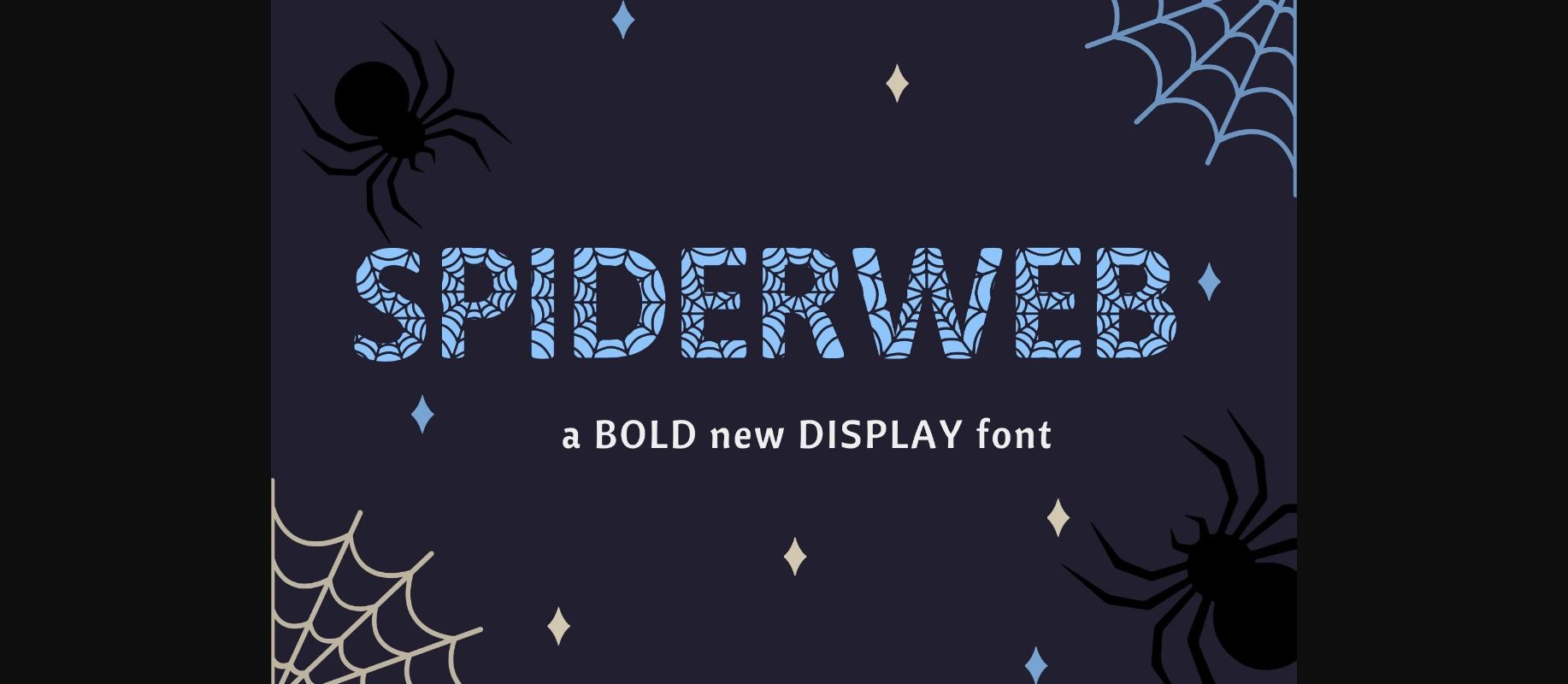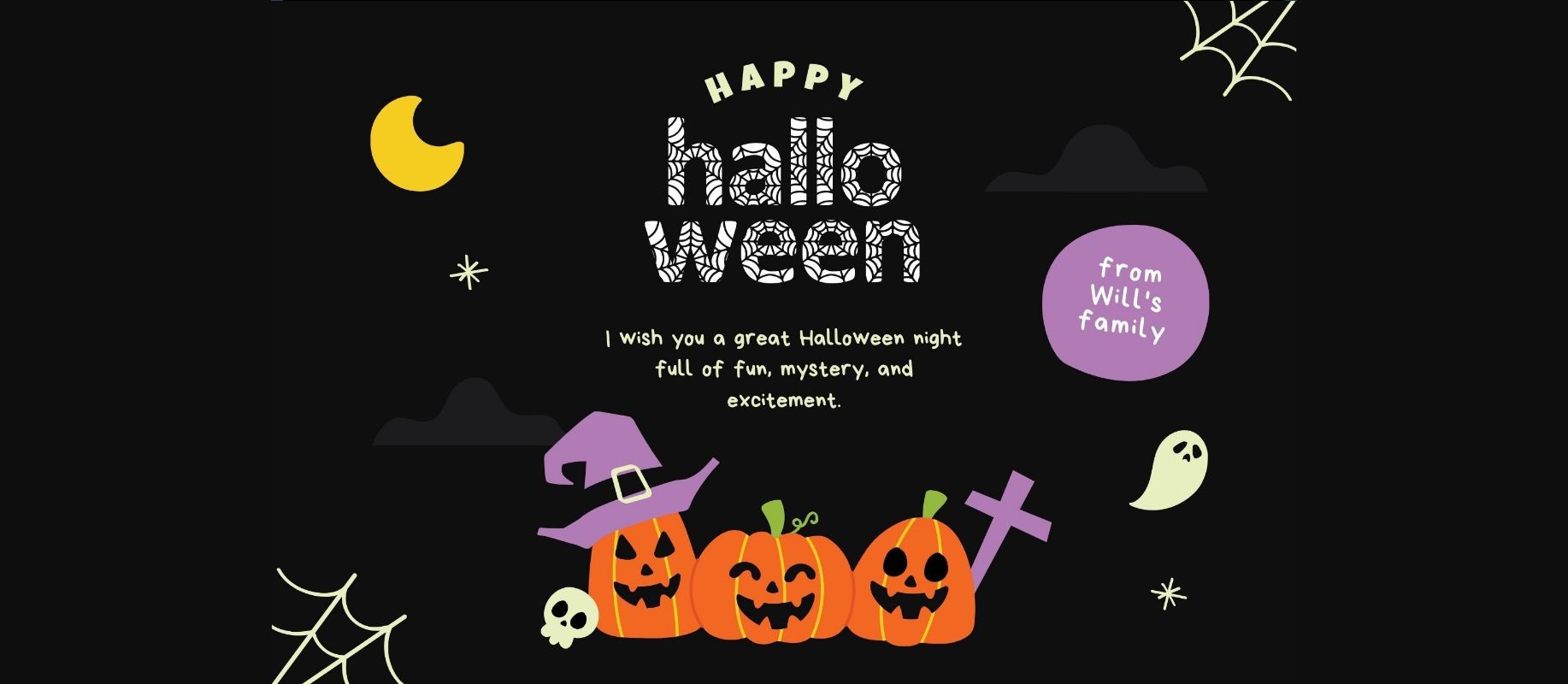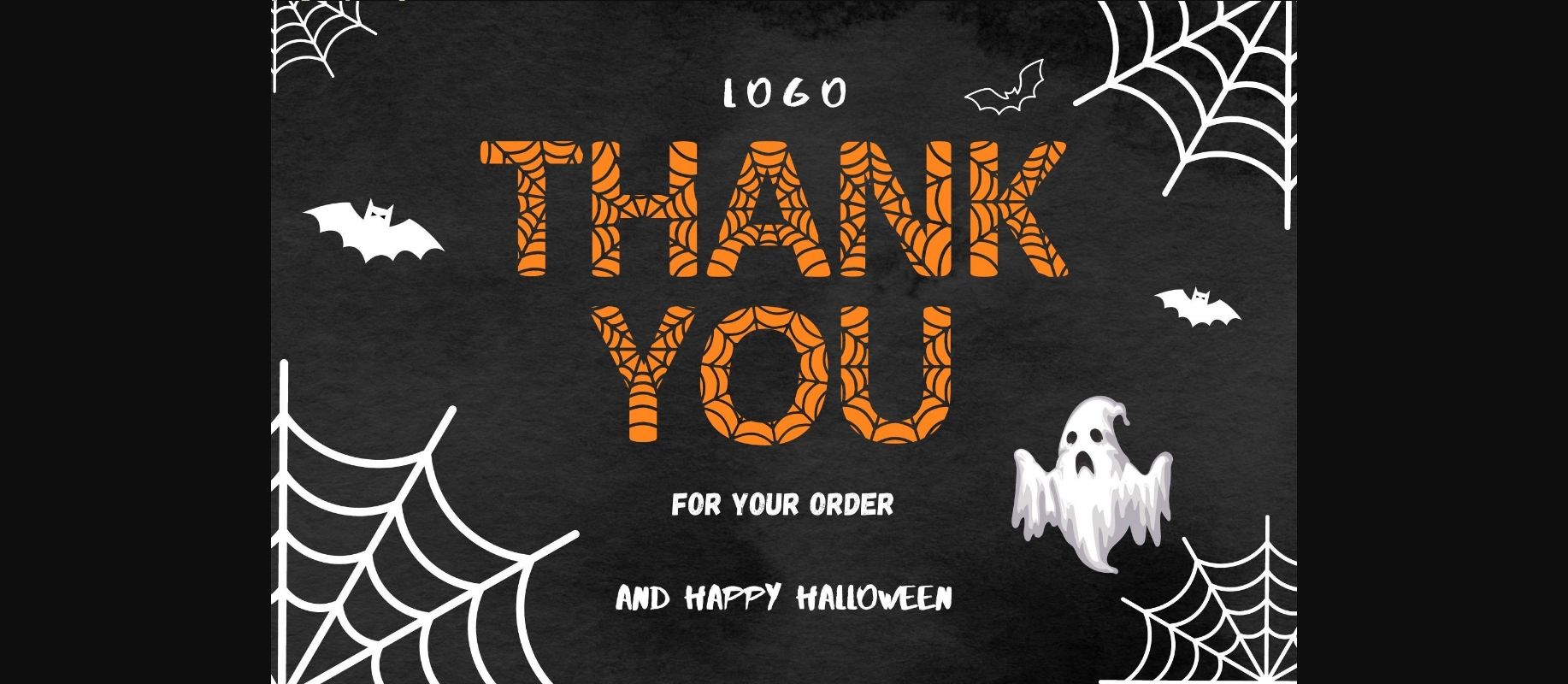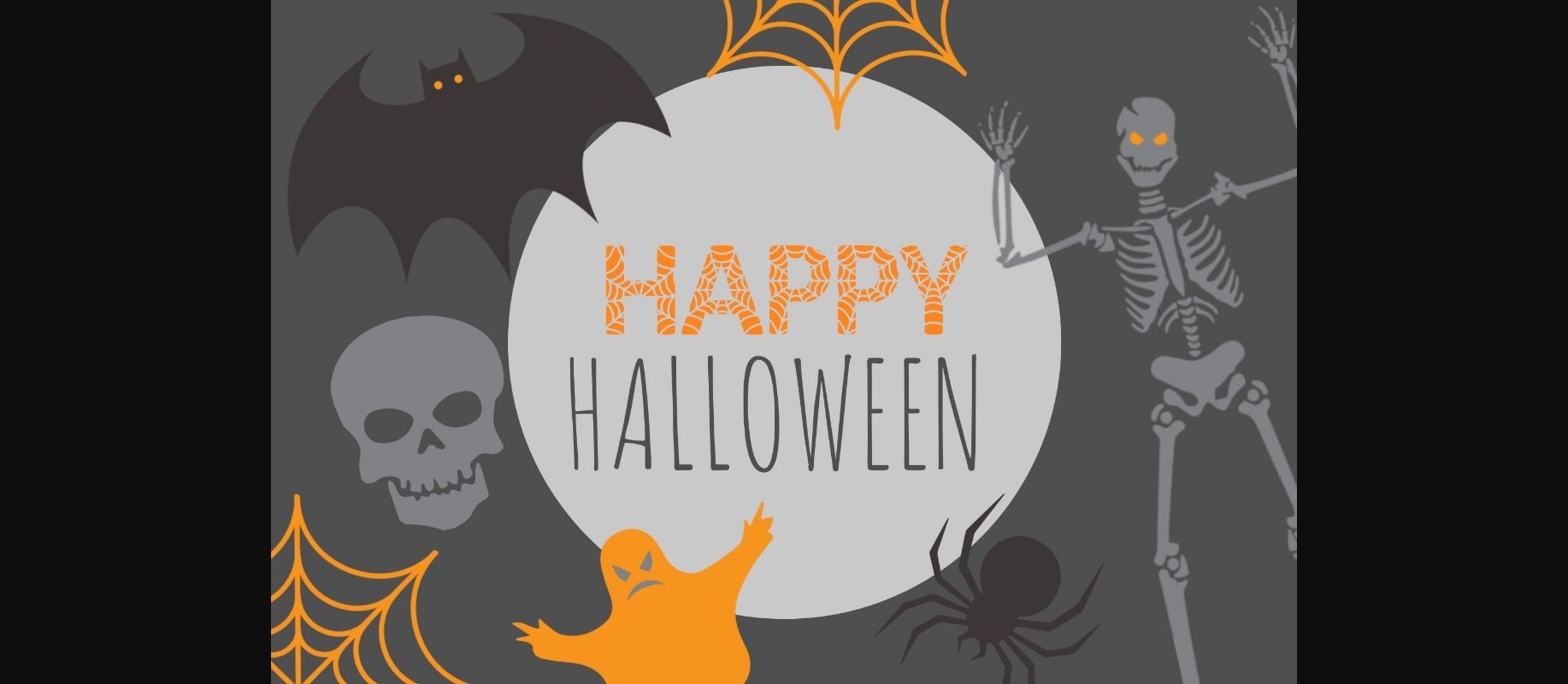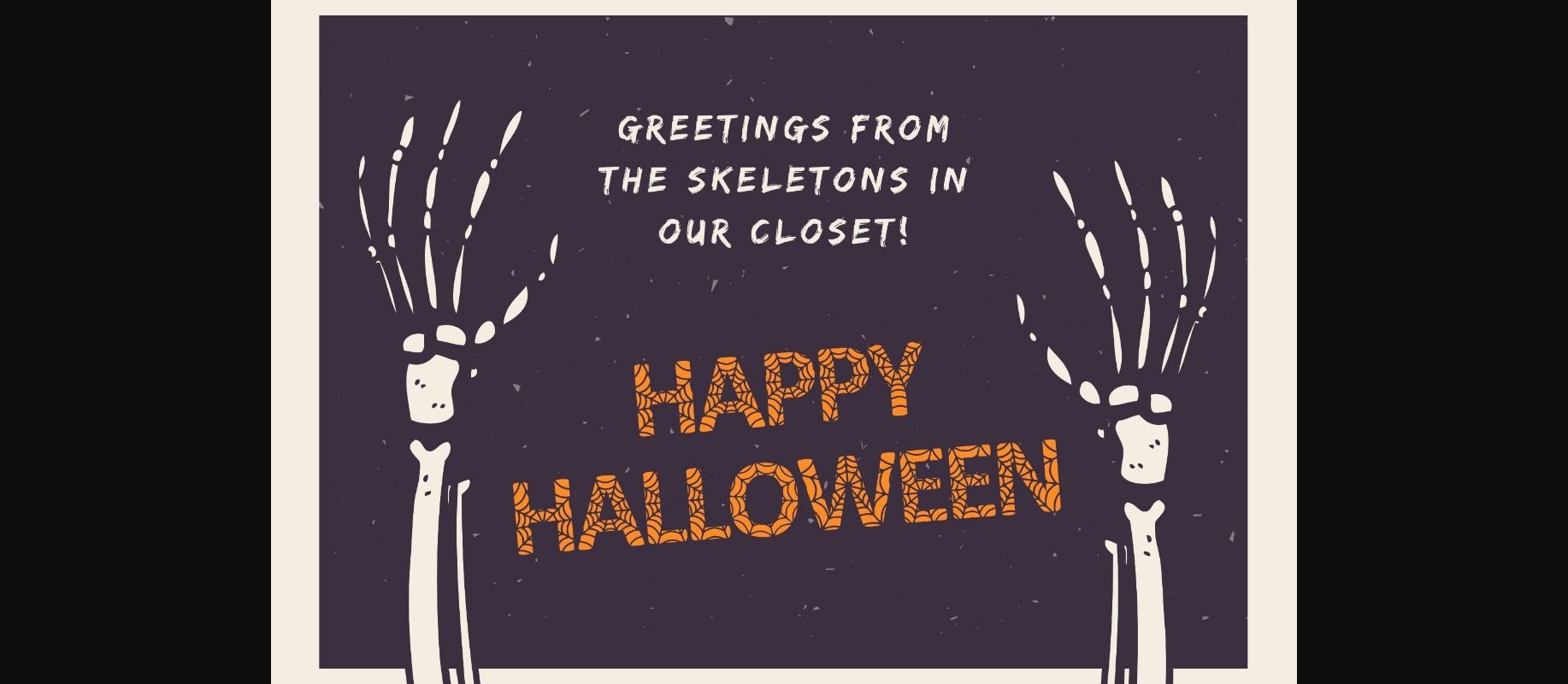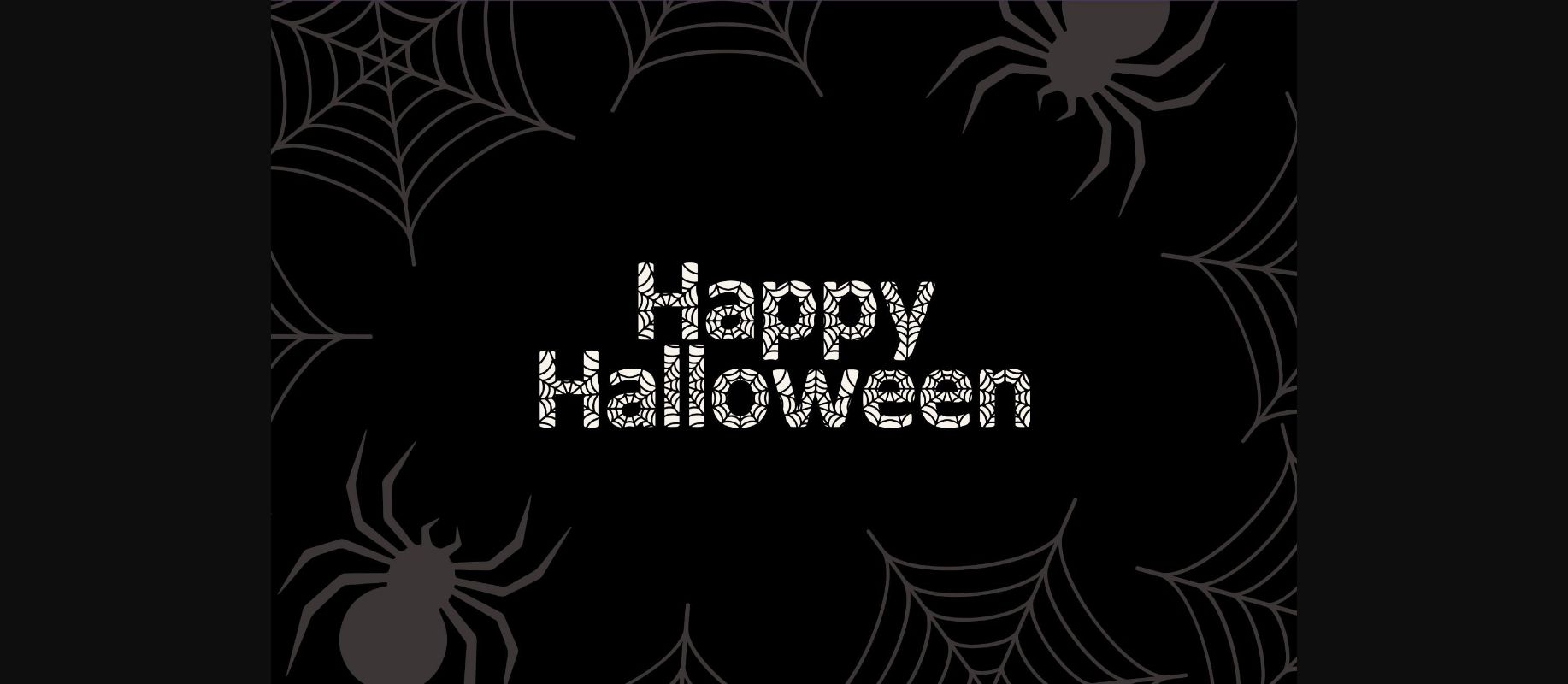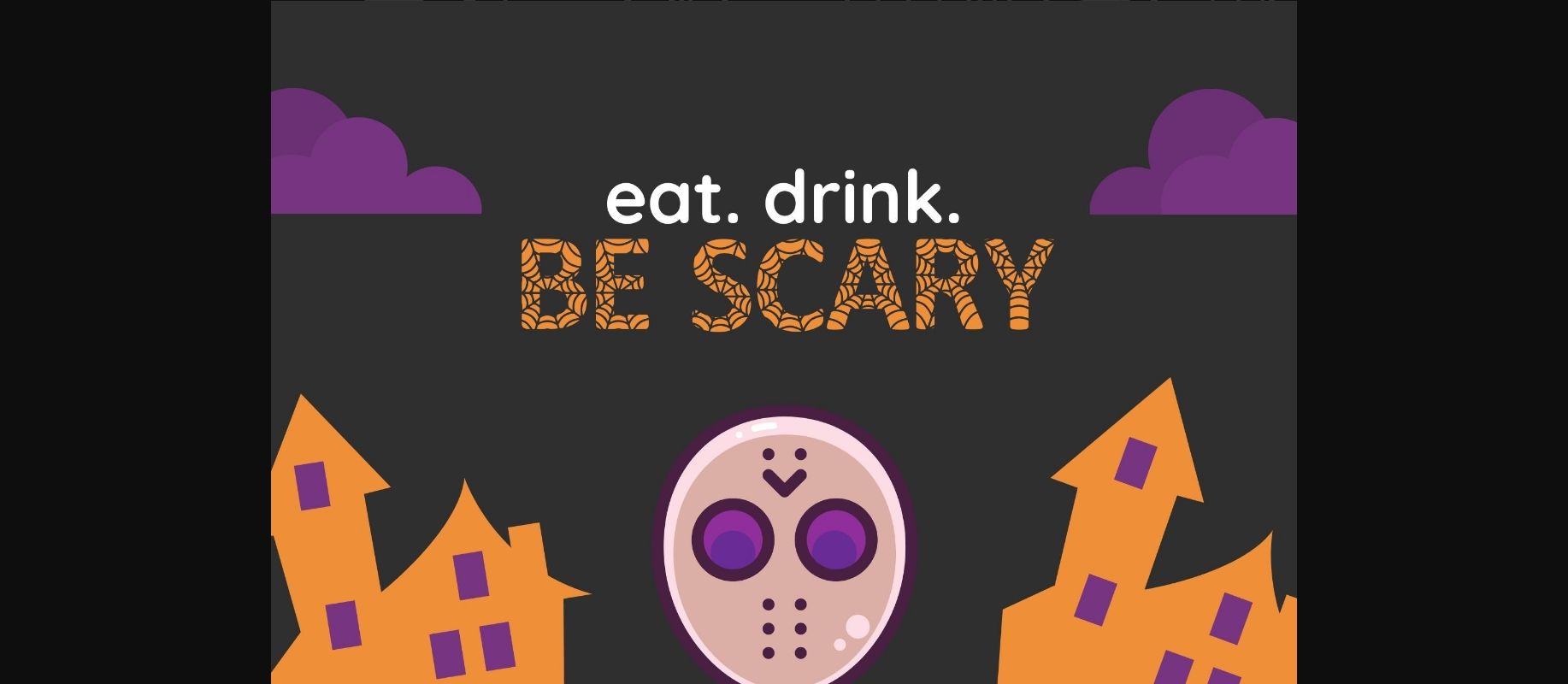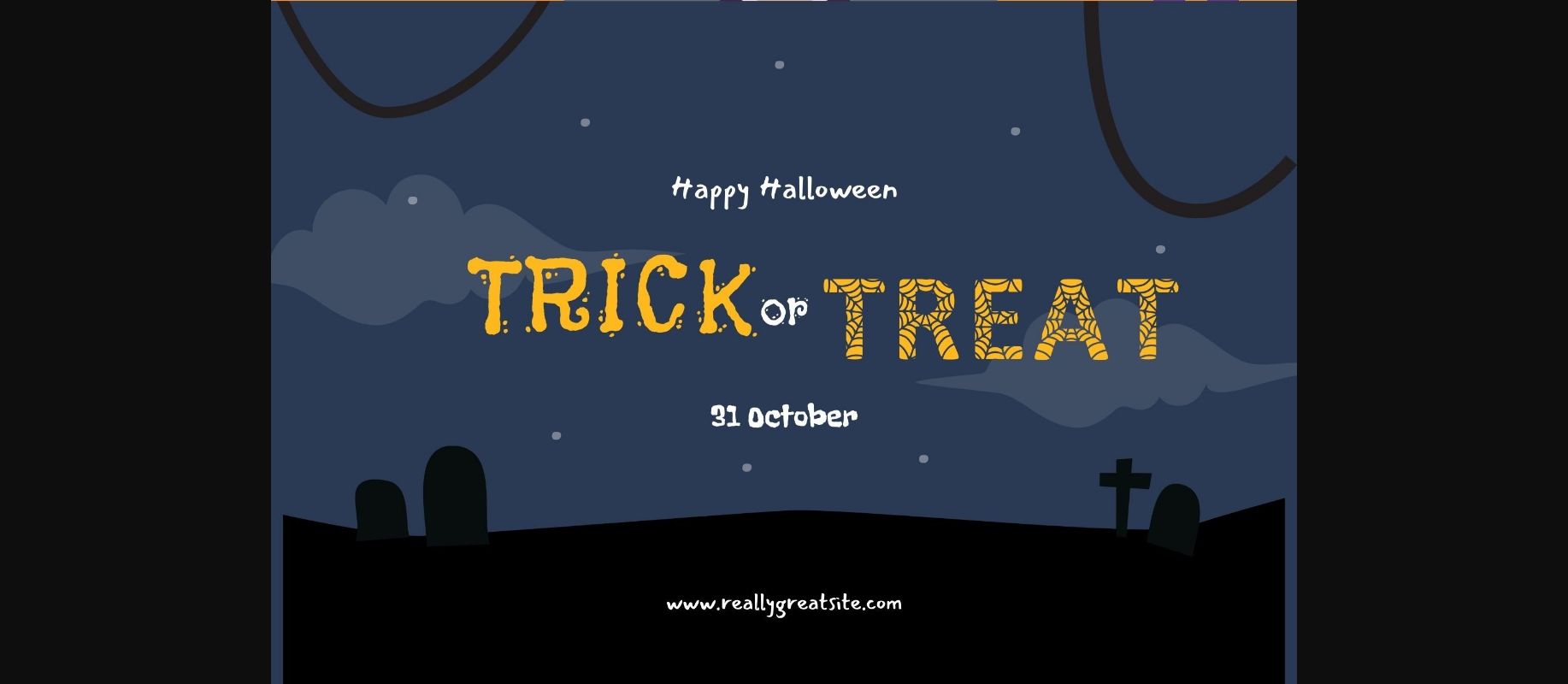
Spiderweb Font
About Spiderweb Font
SpiderWeb is a bold decorative font just in time for Halloween. Use it to add spooky vibes to magazine covers, banners, party decorations, stationery, home decor, wall art, or anything else.